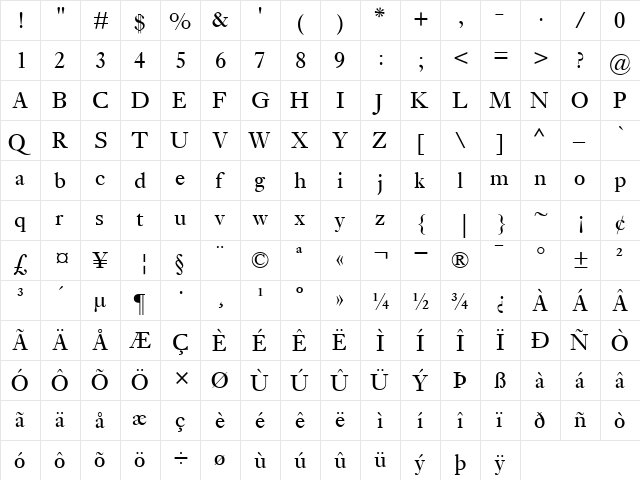
EhrhardtMT Roman Font Preview
EhrhardtMT Roman
Design Context for EhrhardtMT Typeface
EhrhardtMT is a composed and adaptable typeface that performs quietly and consistently across a wide range of design contexts.